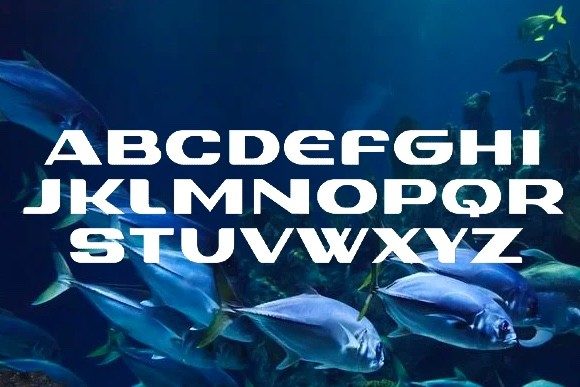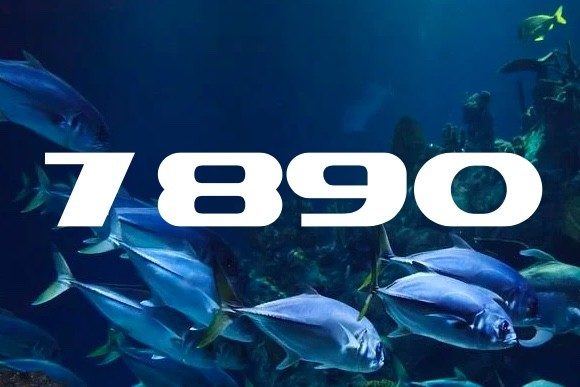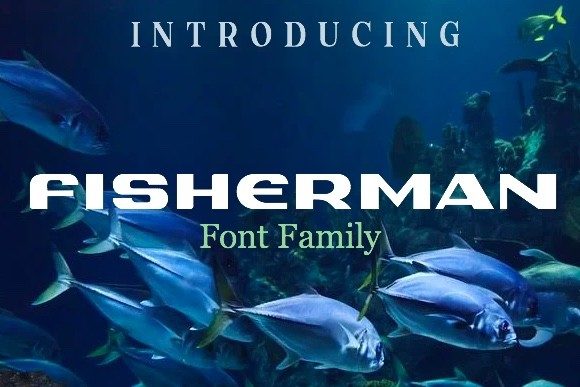
Introducing Fisherman Font: A Cute and Natural Display Font for Your Creative Projects
Are you a designer, crafty enthusiast, or business owner looking for a unique and versatile font to elevate your brand’s visual identity? Look no further than Fisherman Font, a charming and natural display font that’s perfect for a wide range of applications. In this article, we’ll dive into the features and benefits of Fisherman Font, and explore how it can add a touch of personality to your designs.
A Font that’s Off the Hook: Three Styles to Reel In
Fisherman Font comes in three distinct styles, offering a range of creative possibilities. Whether you’re looking for a bold statement or a more subtle approach, this font has got you covered. The three styles are:
- Style 1: A classic, bold font with a geometric feel that’s perfect for headlines and titles.
- Style 2: A slightly more refined and elegant take on the original, ideal for body text and descriptions.
- Style 3: A fun and playful script font that’s great for adding a personal touch to your designs.
Perfect for Foodies and Beyond: Versatile Applications for Fisherman Font
While Fisherman Font may have a natural affinity with food-related projects, its versatility knows no bounds. Here are some ideas for using this fantastic font:
- Food Menus: Add a touch of whimsy to your restaurant’s menu with Fisherman Font, perfect for highlighting daily specials or showcasing signature dishes.
- Posters and Flyers: Grab attention with bold, eye-catching headlines and descriptions that showcase your event or promotion.
- Print Materials: Use Fisherman Font on business cards, brochures, and other print materials to create a cohesive brand identity.
- Logos and Branding: Incorporate Fisherman Font into your logo design or use it as a standalone font for your brand’s visual identity.
- T-Shirt Printing: Create fun and quirky designs for apparel with Fisherman Font’s playful script style.
- Creative Products: Use Fisherman Font on mugs, tote bags, and other creative products to add a personal touch.
Why Choose Fisherman Font for Your Design Projects?
So, what sets Fisherman Font apart from other display fonts on the market? Here are just a few reasons why designers and crafters love this font:
- Unique Character: Fisherman Font has a distinctive, hand-crafted feel that’s sure to set your designs apart from the crowd.
- Geometric Strong Vibe: The font’s geometric shapes and lines create a strong, modern aesthetic that’s perfect for brands looking for a bold visual identity.
- Cute and Natural: Fisherman Font’s playful, organic feel makes it perfect for designs that require a touch of personality and whimsy.
In conclusion, Fisherman Font is a must-have for designers, crafters, and business owners looking for a unique and versatile display font. Its three styles, cute and natural aesthetic, and geometric strong vibe make it perfect for a wide range of applications. So why wait? Dive into the world of Fisherman Font and discover a font that’s off the hook!